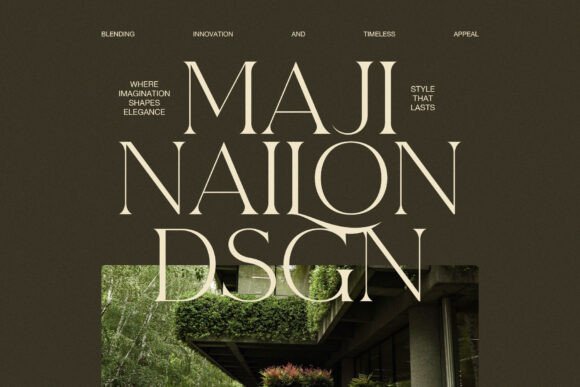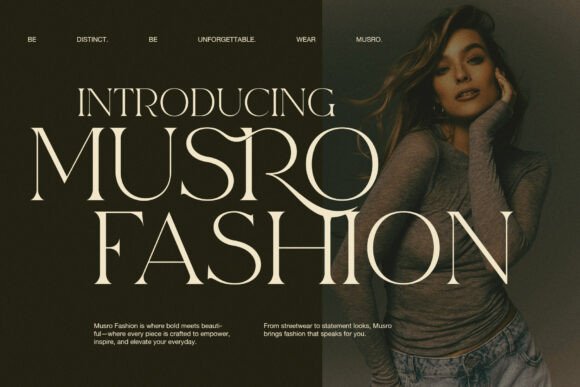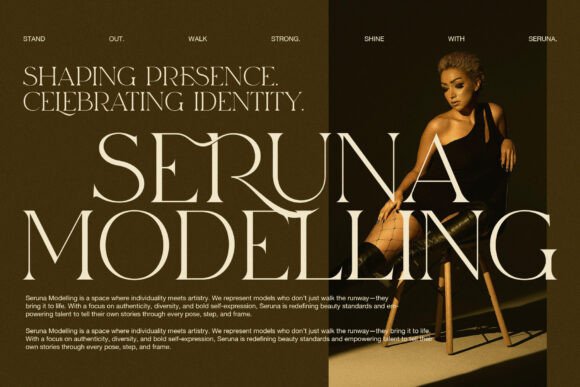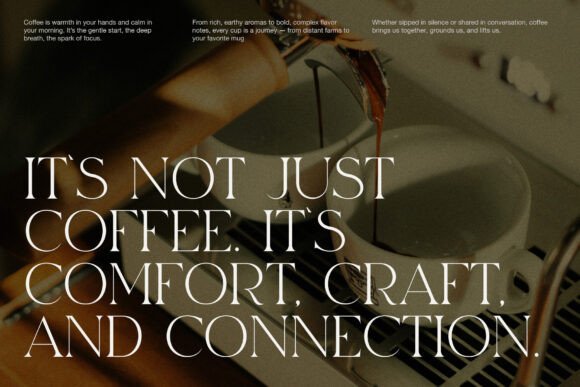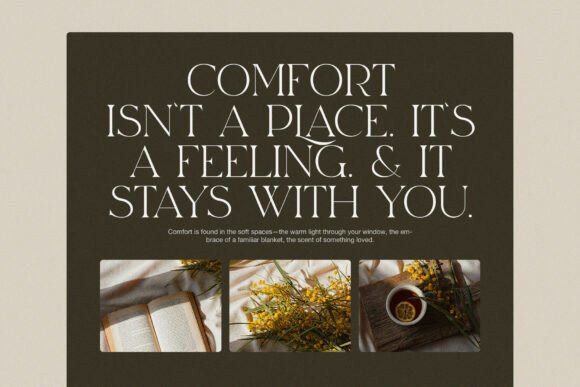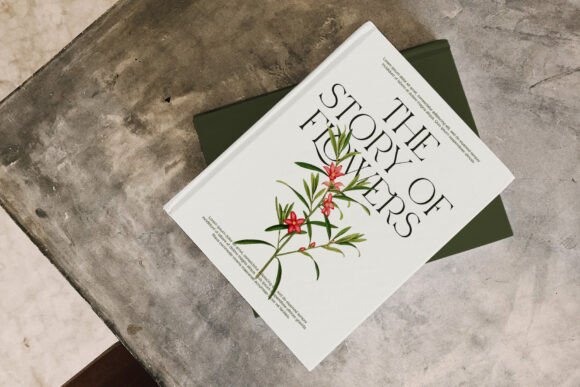
Introduction to Merilo Font
As you hover over a design concept, the perfect font can be the difference between a stunning visual experience and a mere afterthought. Imagine a world where your creative project transcends mere aesthetics, where every detail whispers refinement and sophistication. This is the realm of Merilo Font, a modern serif typeface that embodies the perfect blend of classical charm and contemporary elegance.
For designers, the Merilo Font represents a valuable resource, a high-quality design tool that elevates any creative project with poise and personality. With its delicate curves, refined contrast, and elegant serifs, this font is a game-changer for those seeking to craft memorable and meaningful brand identities, editorial layouts, and product packaging.
Key Features of Merilo Font
- High-quality design resource with a unique, modern aesthetic, perfect for creative projects
- Designed with precision and care, Merilo Font is ideal for use in logos, branding materials, and other visual identity projects
Honest Review: Merilo Font
I recently stumbled upon the Merilo Font and I must say, I’m quite impressed with its elegant design. This free download is perfect for any creative project that requires a high-quality font.
- ✨ The font’s transparent background makes it versatile for any design resource, allowing you to easily overlay it on any image.
- ✨ The clean and modern design of the Merilo Font makes it suitable for a wide range of creative projects, from logos to typography-heavy designs.
- ⚠️ The font’s character set is limited, which may not be ideal for projects that require a wide range of characters.
- ⚠️ The font’s size and weight may not be as customizable as some other fonts, which can be a drawback for designers who prefer more flexibility.
Overall, I think the Merilo Font is a great addition to any designer’s toolkit. Its high-quality design and transparent background make it a valuable resource for any creative project. While it may have some limitations, I believe it’s definitely worth checking out.
Tips for Getting the Most Out of Merilo Font
To get the most out of Merilo Font, use it on a transparent background to create a clean and modern look. You can also experiment with different font sizes and styles to add visual interest to your design. Additionally, use Merilo Font in conjunction with high-quality images to create a professional-looking design.
Merilo Font is commonly used in creative projects such as logos, business cards, and brochures. Its clean and modern design makes it perfect for any project that requires a professional and sophisticated look.